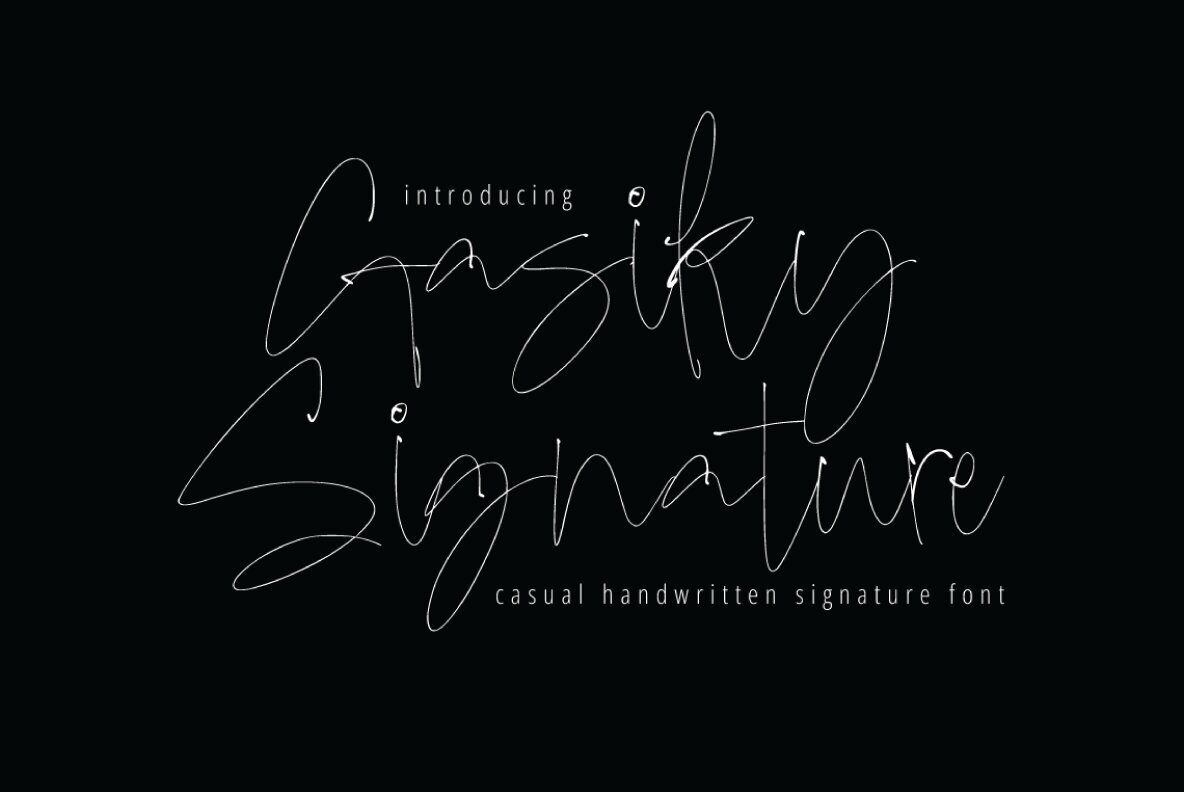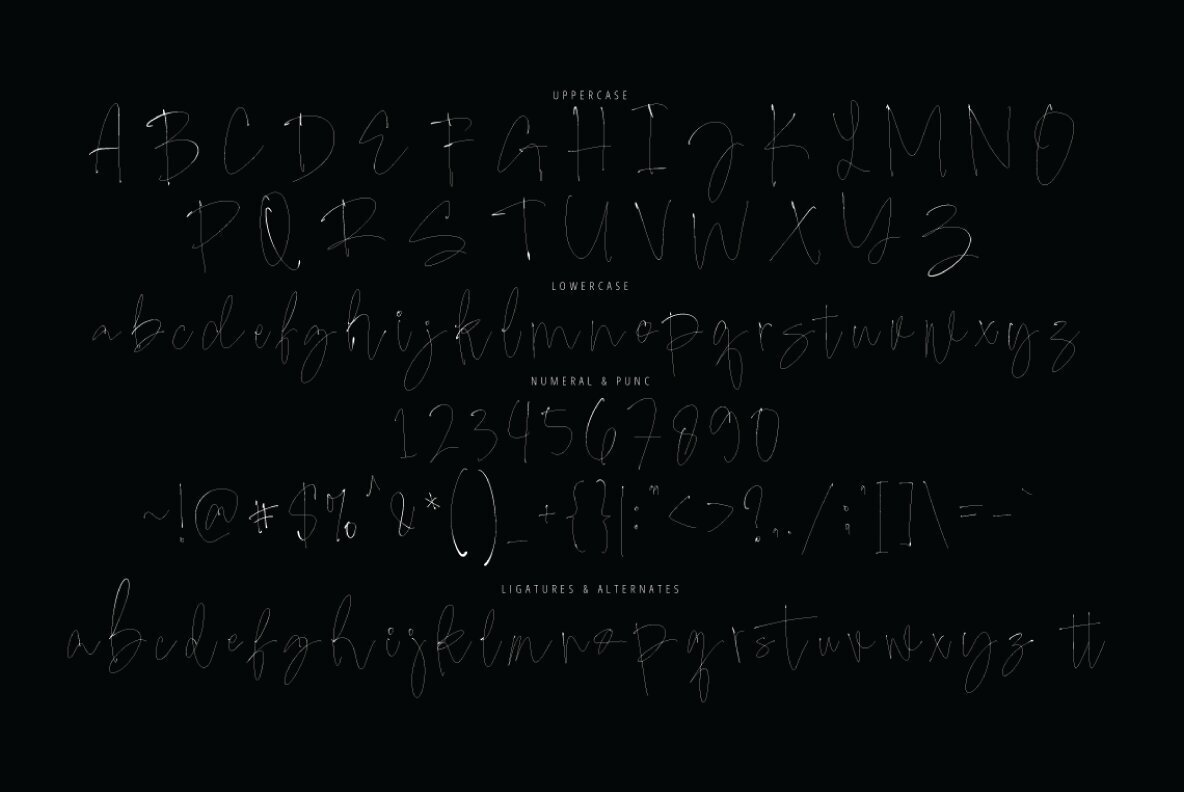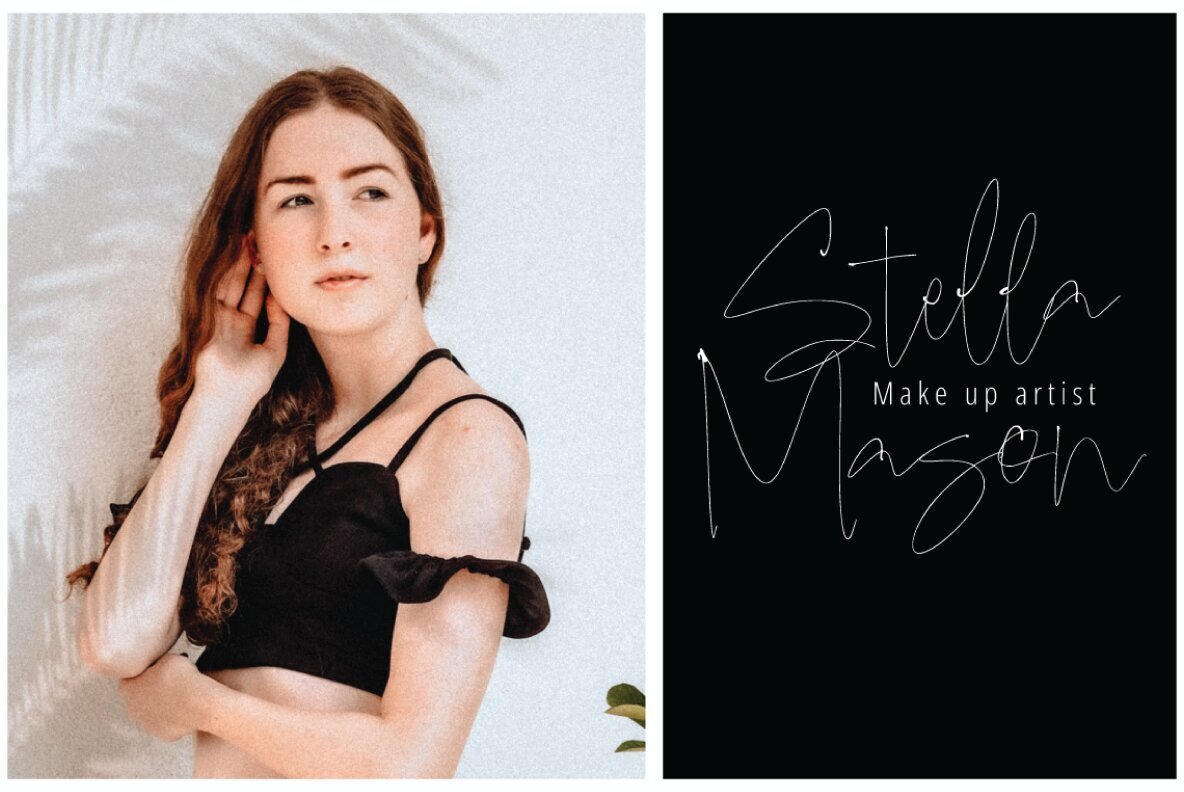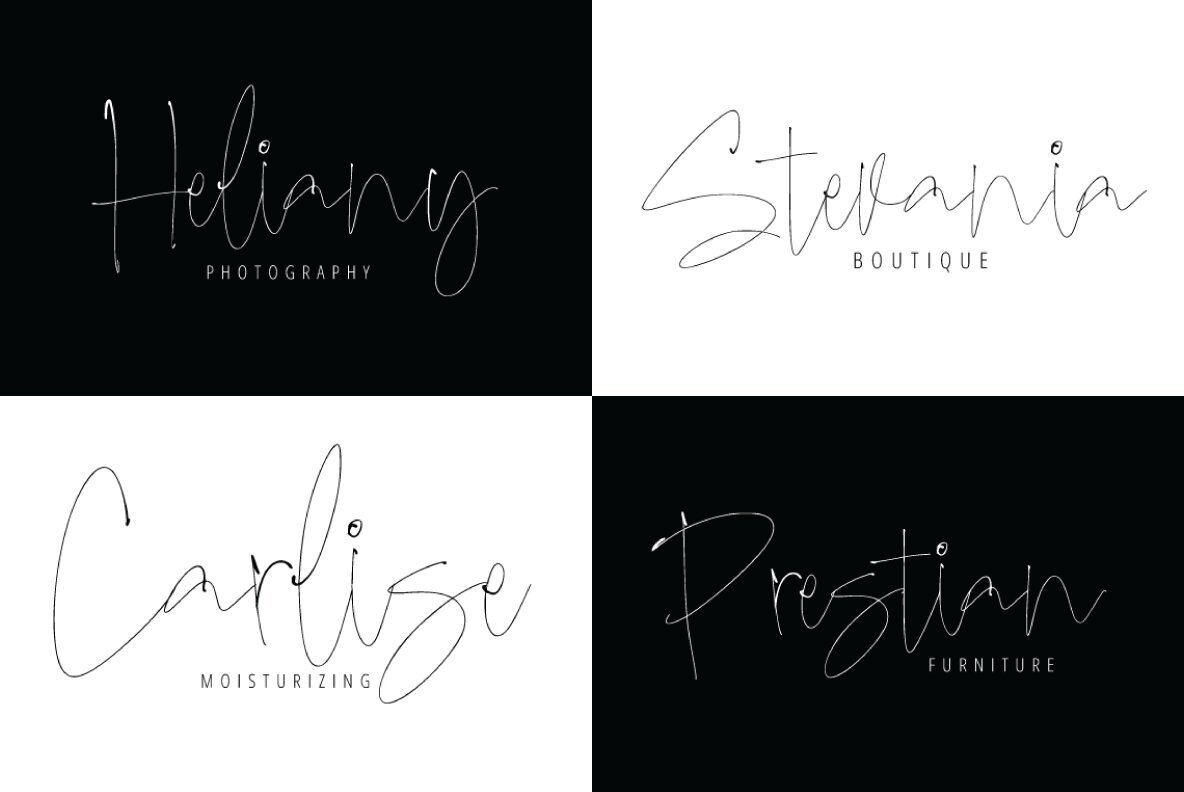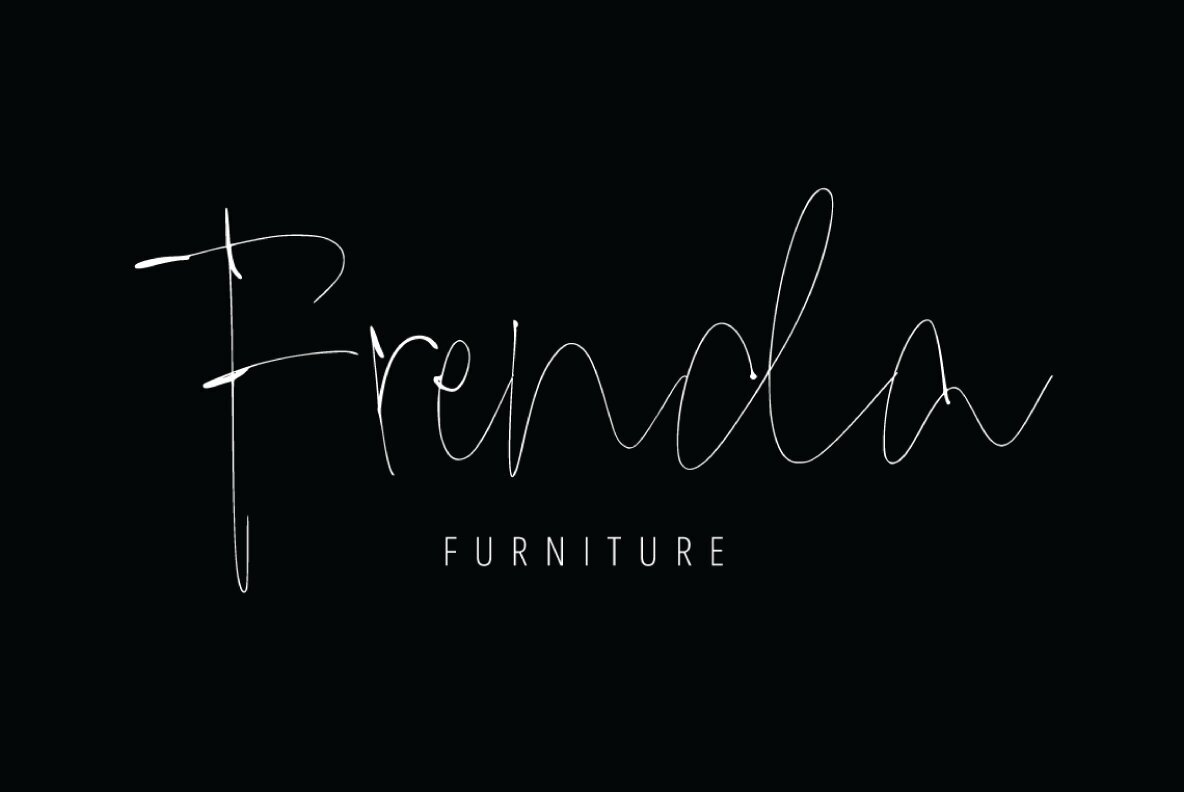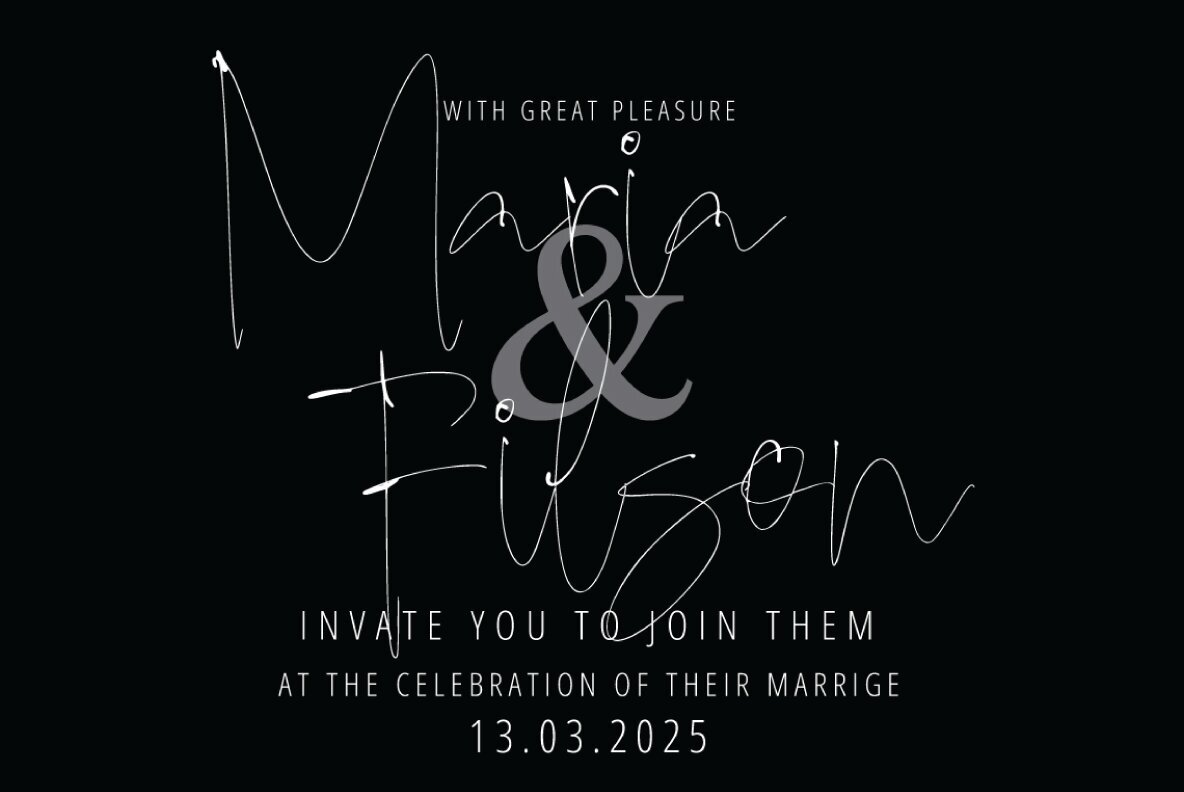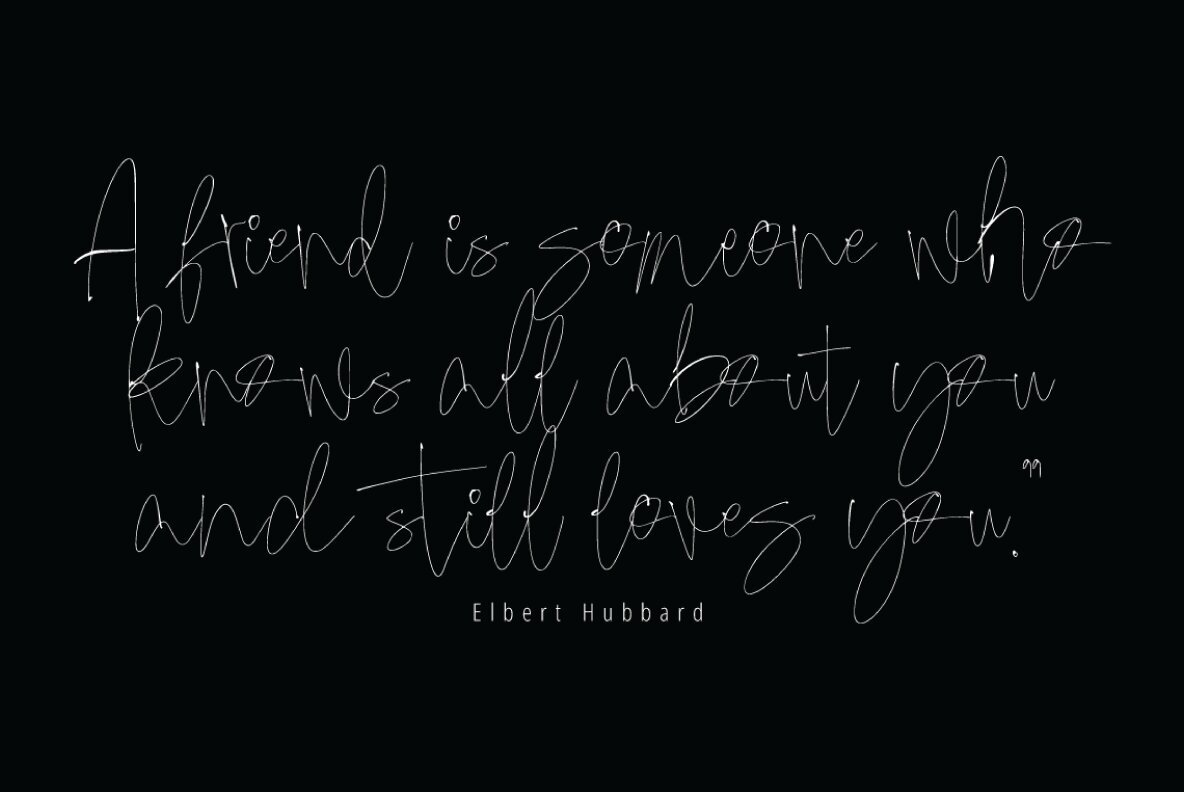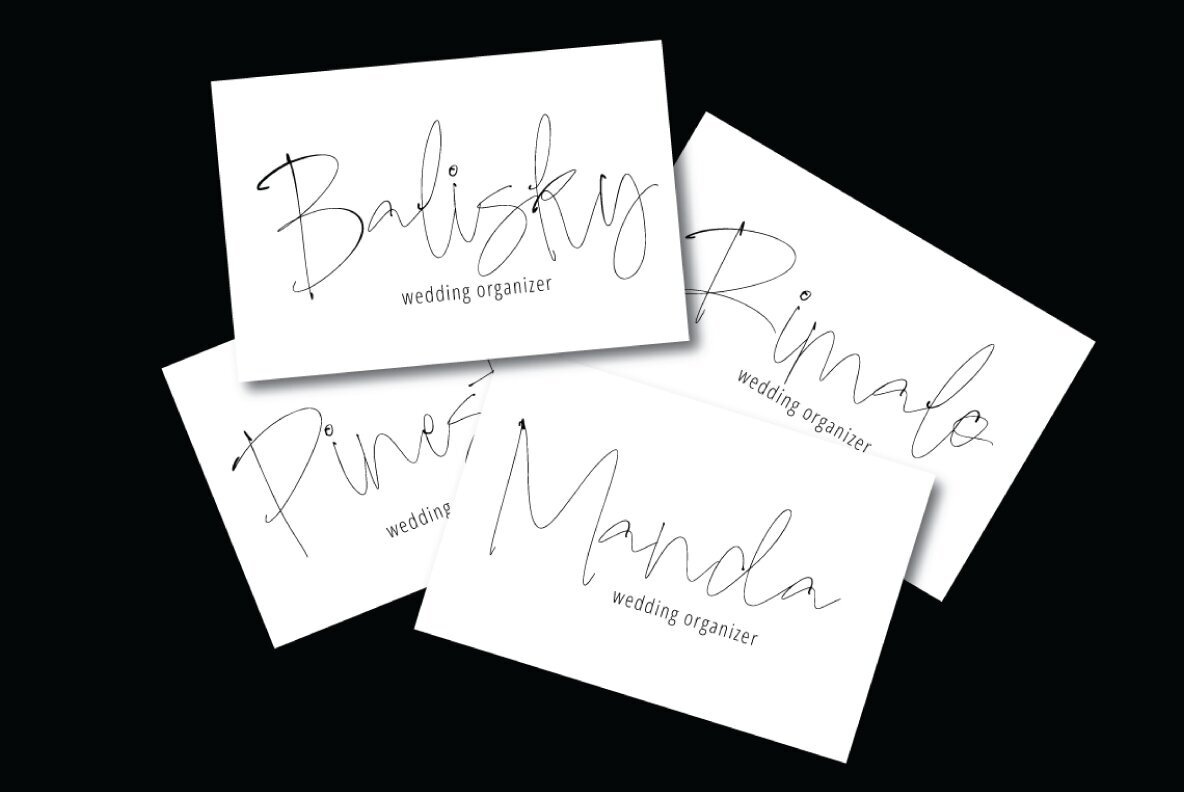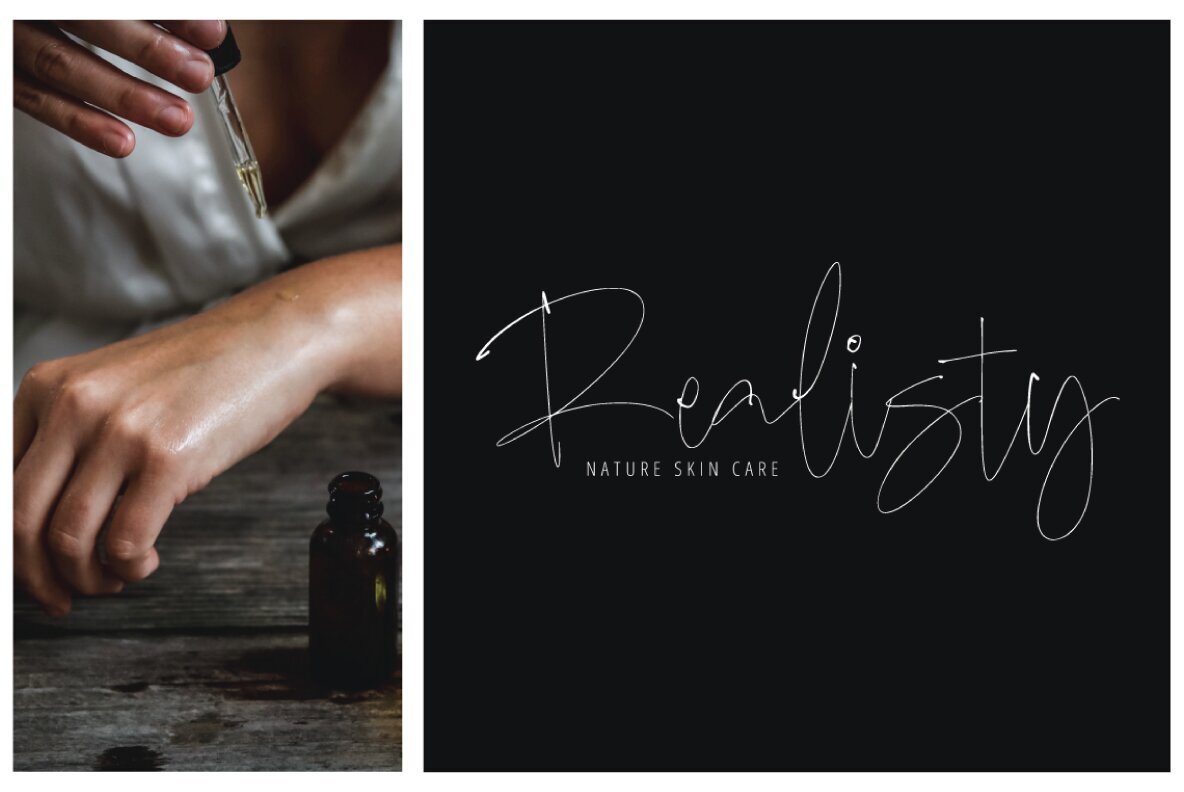
Gasiky Signature Font
Discover the exquisite charm of the Gasiky Signature font—a handmade typeface brimming with character and elegance. Ideal for enhancing invitations, greeting cards, branding materials, business cards, quotes, and posters, this font brings a touch of artistry to your designs. With over 150 glyphs, Gasiky Signature offers a diverse array of decorative characters set on a playful, dancing baseline. The font package includes basic Latin A-Z, numbers, symbols, stylistic sets, ligatures, and multilingual support, offering full versatility for all your creative projects. Should you lack OpenType-compatible software, you can still access its alternate glyphs using Font Book on Mac or Character Map on Windows.Gasiky Signature Font